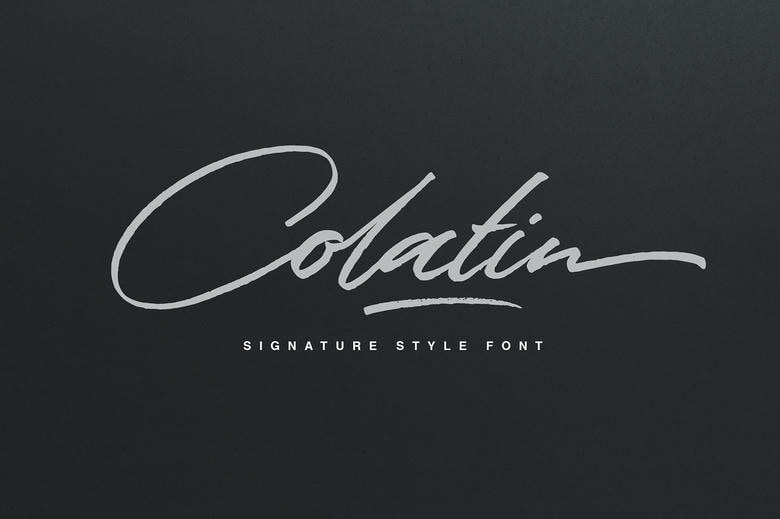
Colatin Script Font
Colatin Script Font is a handmade signature-style font with beautiful characters. It works well for logos, name tags, handwritten quotes, product packaging, merchandise, social media, and greeting cards.
The font includes a complete set of lowercase and uppercase letters, plenty of punctuation marks, numbers, and support for multiple languages.